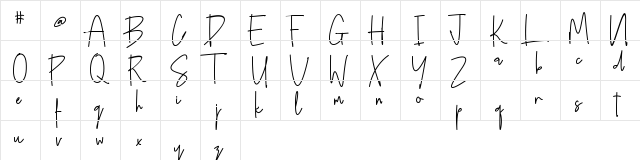
Nebbulla Regular
| Foundry | Ahmad Khaidir |
| Designer | Ahamd Khaidir |
Design Context for Nebbulla Typeface
Nebbulla is a composed and adaptable typeface that performs quietly and consistently across a wide range of design contexts.